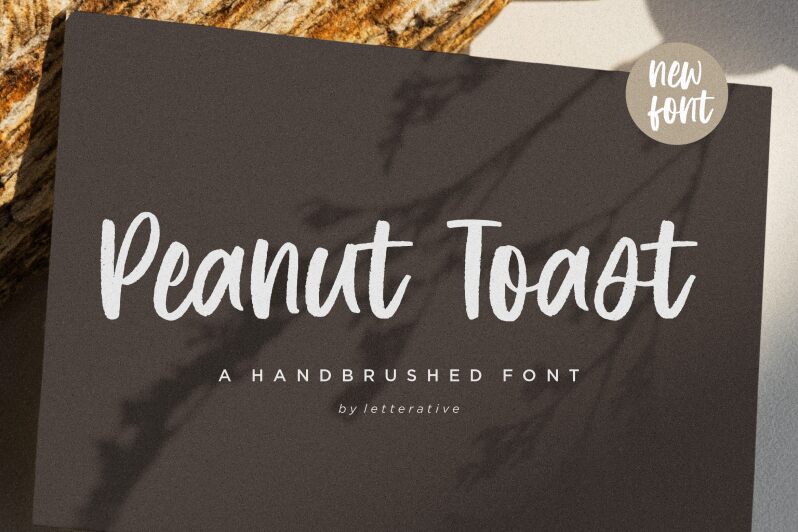
Peanut Toast font by Letterative Studio captures a playful and artistic essence with its dynamic brush style. Its fluid lines and organic strokes evoke a sense of creativity and spontaneity, making it perfect for projects that need a personal touch.
This free font is ideal for designs ranging from logo creation to eye-catching social media graphics. Peanut Toast’s unique character enhances its appeal in branding, invitations, and posters, bringing a handcrafted charm to any project.